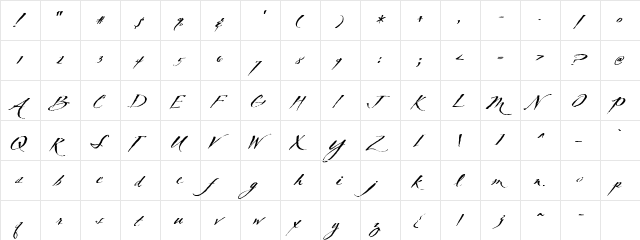
TXT Delicate Script Regular
Design Context for TXT Delicate Script Typeface
TXT Delicate Script brings a calligraphic fluidity to the page — its connecting strokes and expressive curves give it an unmistakably human quality.
Font Pairing: Combine TXT Delicate Script with a simple geometric sans for maximum contrast — the tension between flowing curves and clean structure is a classic typographic pairing.
Pro Tip: Use TXT Delicate Script for short runs of text — names, titles, or taglines. Extended body copy in script faces tires the eye quickly.